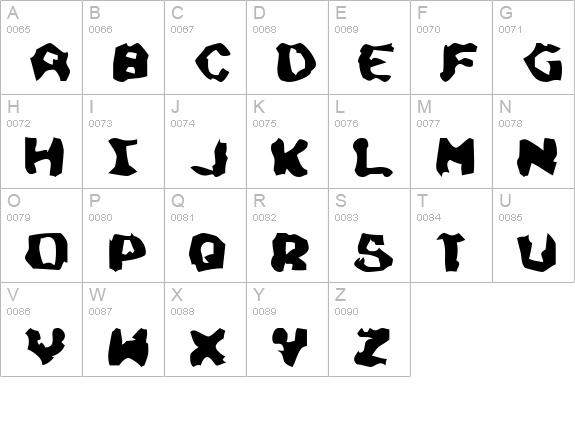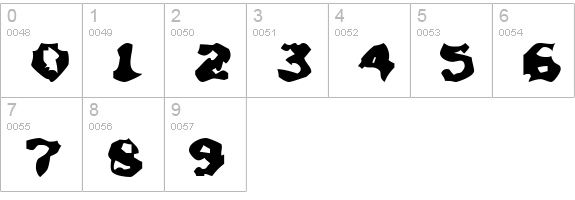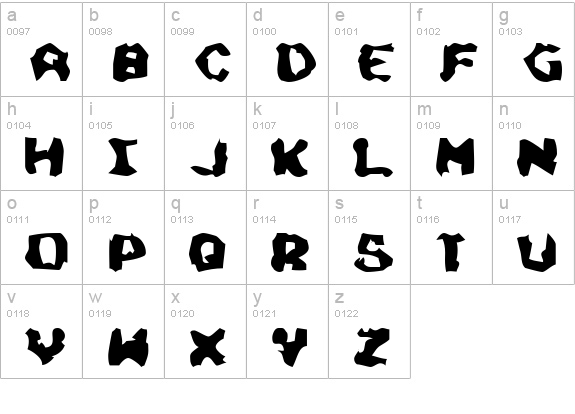
Chunky Soup Font Details
Chunky Soup font is a delightful and playful typeface that exudes a sense of warmth and comfort. With its chunky and slightly rounded letters, this font is perfect for adding a touch of whimsy to your designs. Whether you are working on a project for kids or simply want to inject some fun into your work, Chunky Soup font is sure to bring a smile to your audience's faces. And the best part? Chunky Soup font is completely free to download at FontsMarket.com. So go ahead and add this charming font to your collection today and let your creativity run wild!